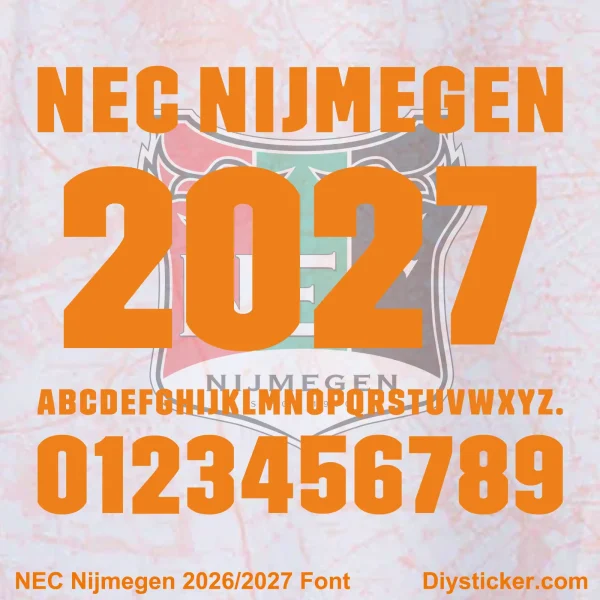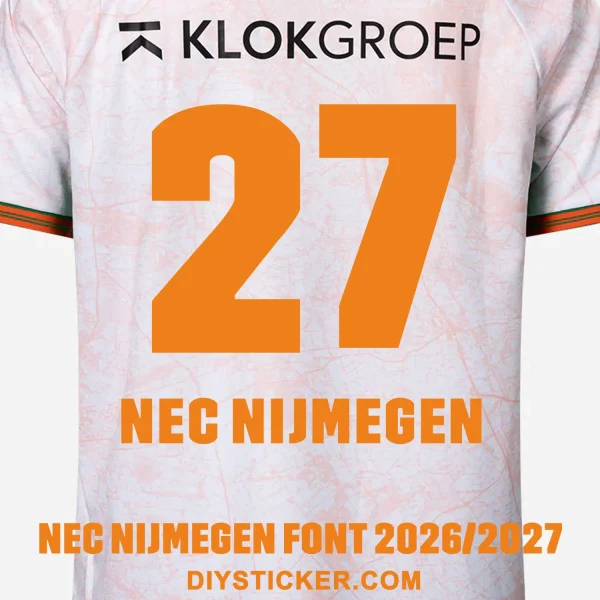
NEC Nijmegen 2026-2027 Font & Numbers Vector Kit: Professional Eredivisie Customization
Transform your sportswear customization workflows with the official NEC Nijmegen 2026-2027 font and full numerical kit. This high-fidelity reproduction pack mirrors the exact typography style utilized by the Eredivisie side for their domestic campaigns. Whether your focus is individual kit customization or generating wide-format sublimation mockups, this asset guarantees commercial-grade vector perfection. Broaden your font repository by exploring our complete collection in the Football club fonts index.
Typography Architecture & Structural Design Elements
The NEC Nijmegen 2026-2027 font breaks away from plain lettering architectures to deliver a robust, highly visible layout designed for maximum legibility on pitch. Key features include:
Solid Bold Block Geometry: The letters and numbers are designed with sharp angled corner cuts and heavy bold weight, creating a prominent, high-impact presence on the kit back.
Clean Monolithic Style: Built with flat, solid fills that offer an incredibly clean profile, ensuring excellent high-contrast visibility against textured sublimation jersey patterns.
Streamlined Digital Contours: Meticulously optimized to maintain a flawless balance between traditional athletic lettering and clean digital minimalism.